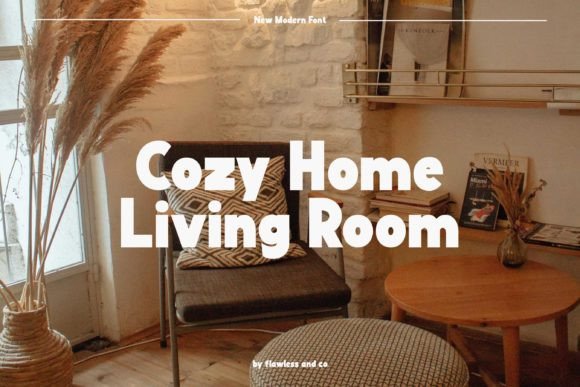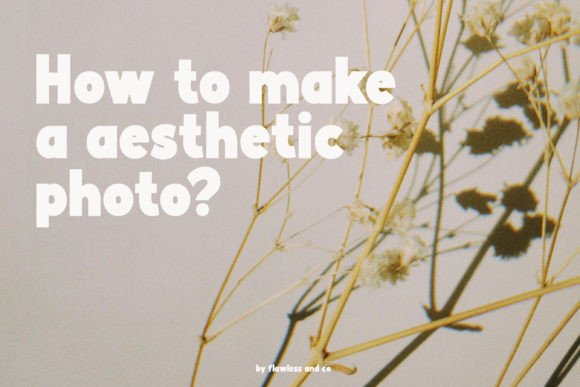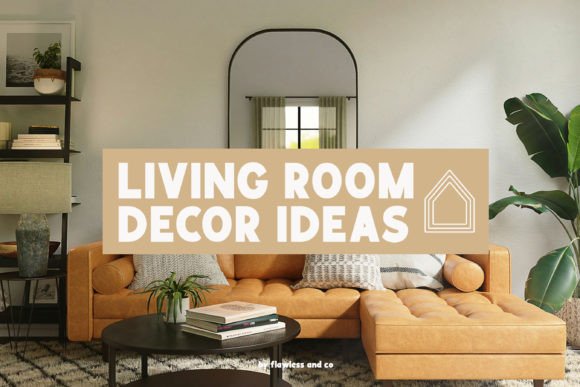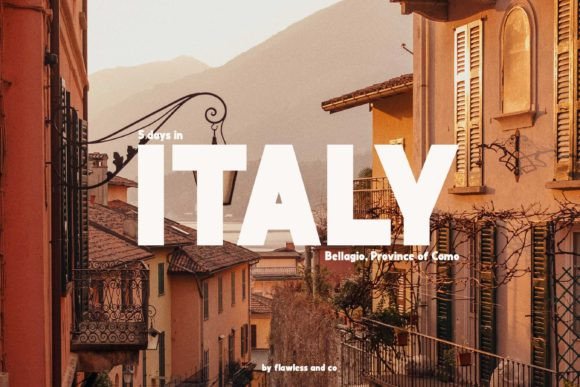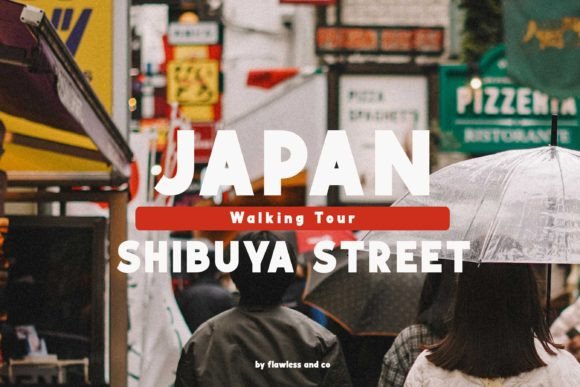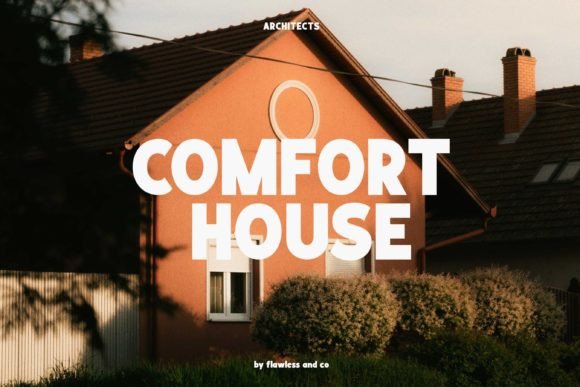
Introduction to Metsuri Font
Have you ever stared at a blank canvas, your creative juices flowing, but your design struggling to take shape? You know the feeling – it’s a mix of excitement and frustration. As a designer, you’re constantly on the lookout for that one thing that sets your project apart. For YouTube thumbnails, branding materials, or any graphic design, finding the right font can be a game-changer.
Enter the Metsuri Font, a high-quality, free download that’s about to revolutionize your design process. With its clean lines, geometric structure, and transparent background, this font is a design resource that’s hard to ignore. Its modernism and professionalism make it the perfect fit for a wide range of creative projects, from video content to print materials.
As a designer, you’ll appreciate the versatility and value that Metsuri Font brings to your work. Whether you’re working on a solo project or collaborating with a team, this font is sure to elevate your designs and leave a lasting impression.
Key Features of Metsuri Font
- Features a unique and elegant style with a transparent background, ideal for use in digital design and print materials.
- Includes a large character set with support for multiple languages, making it a versatile choice for global projects.
Honest Review: Metsuri Font
- ✨ High-quality font with a unique aesthetic that sets it apart from other fonts
- ✨ Transparent background, making it easy to use in various design contexts
- ✨ Perfect for creative projects that require a touch of elegance and sophistication
- ⚠️ Limited character set, which may not be suitable for extended text content
- ⚠️ Not as versatile as some other fonts, which may limit its use in certain design applications
Metsuri Font
The Metsuri Font is a high-quality design resource ideal for creative projects. It can be downloaded for free and features a transparent background, making it versatile for various applications.
Tips for Getting the Most Out of Metsuri Font
Experiment with different font sizes and colors to create a visually appealing design. Use the transparent background feature to create a seamless integration with other design elements.
The Metsuri Font is suitable for various creative projects, including graphic design, digital art, and typography-based designs. Its high-quality design and transparent background make it an ideal choice for designers looking for a versatile font resource.